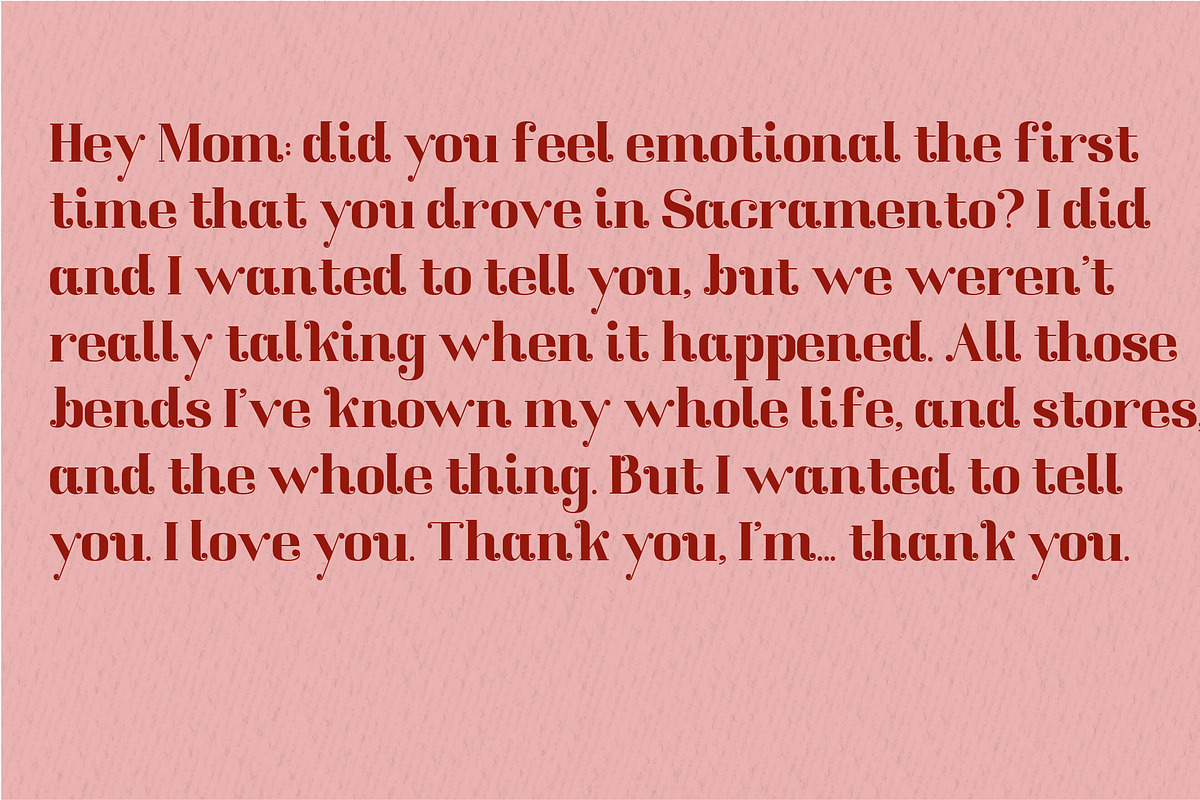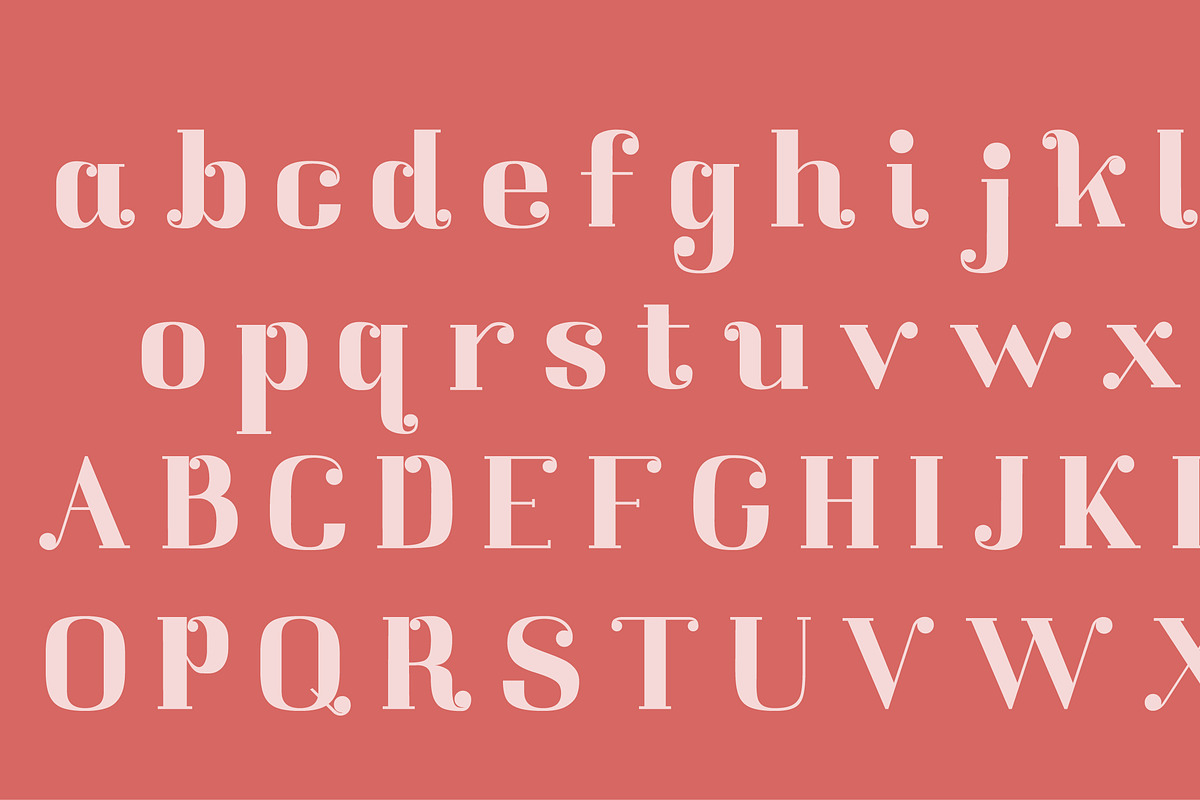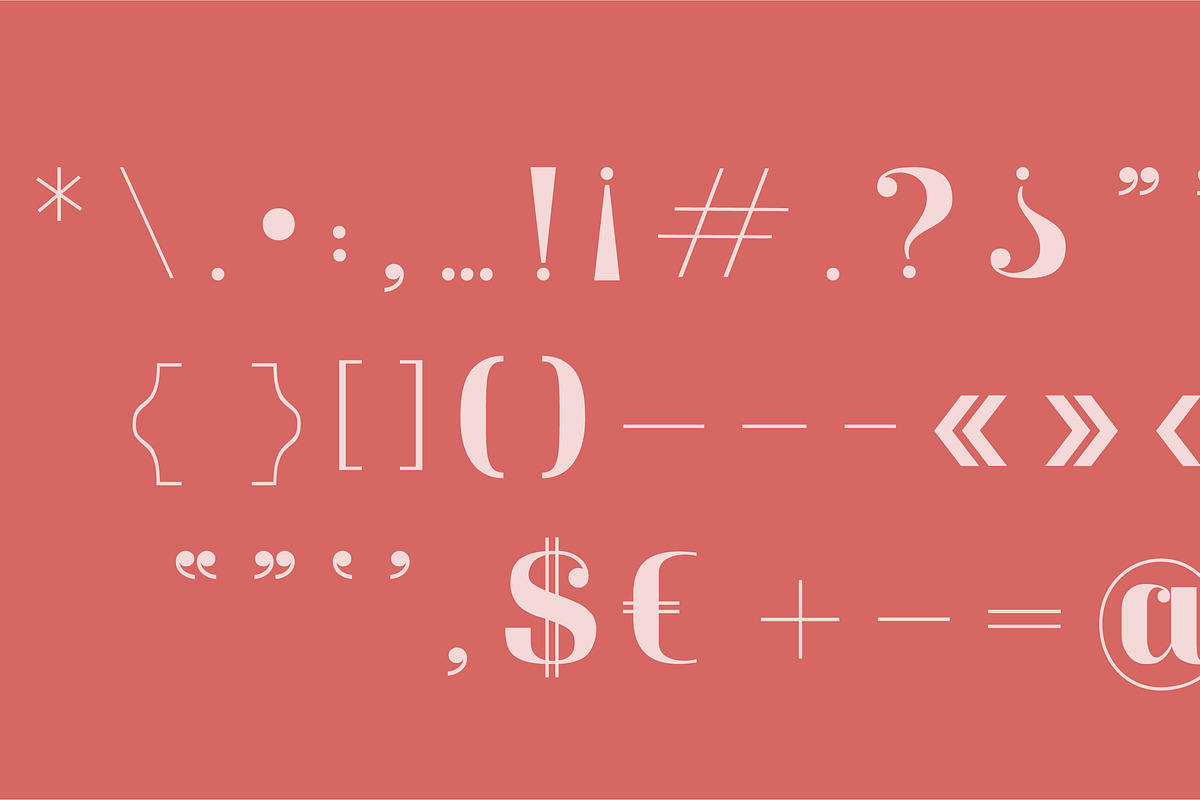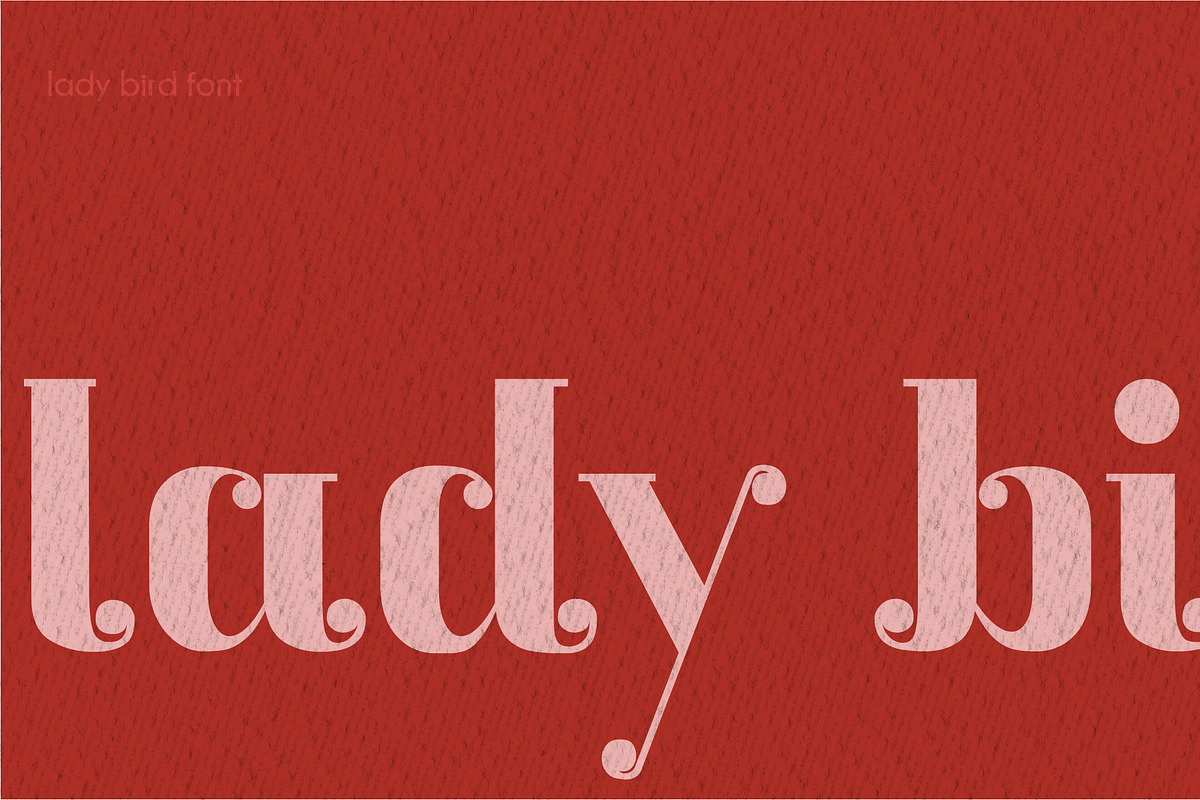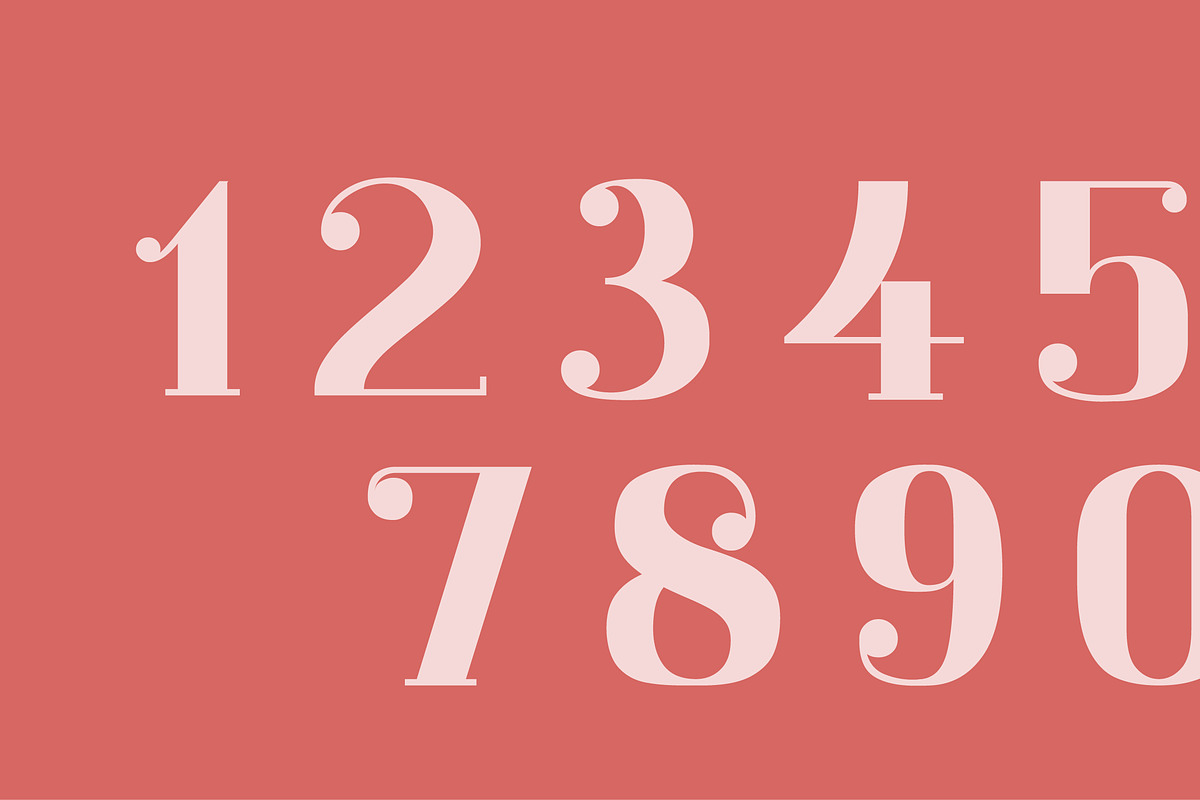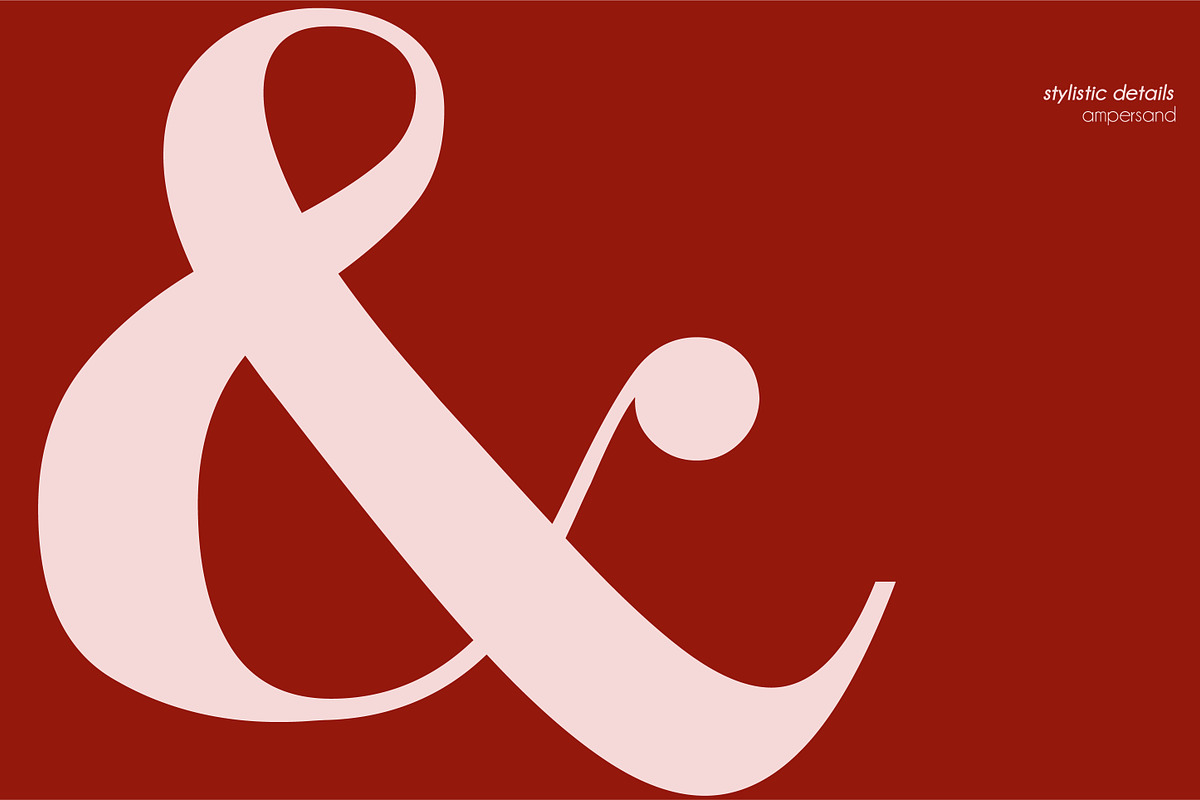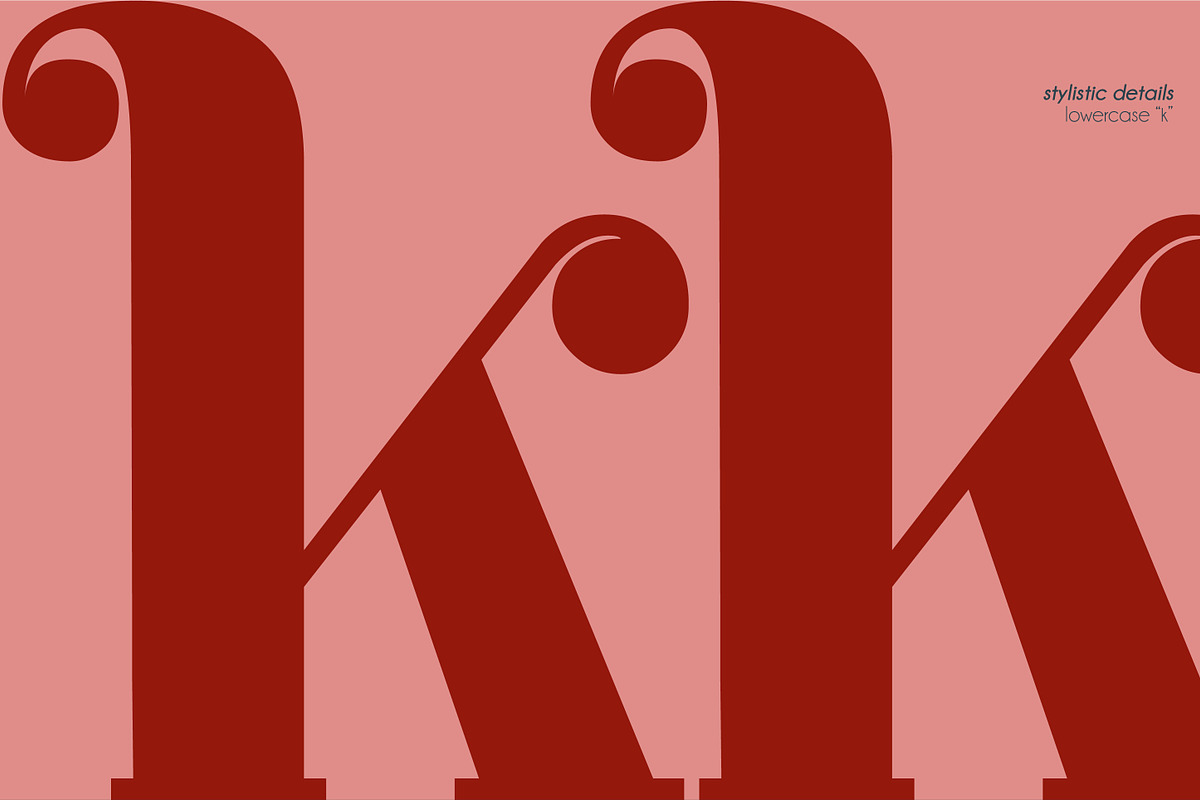
Lady Bird Font
This is a font inspired by the movie Lady Bird. It is a bold yet friendly typeface with high contrast letters.
Suitable for display settings and decorative titling.
Lady Bird Font by nouranabed fits naturally into Branding, posters, packaging, typography.